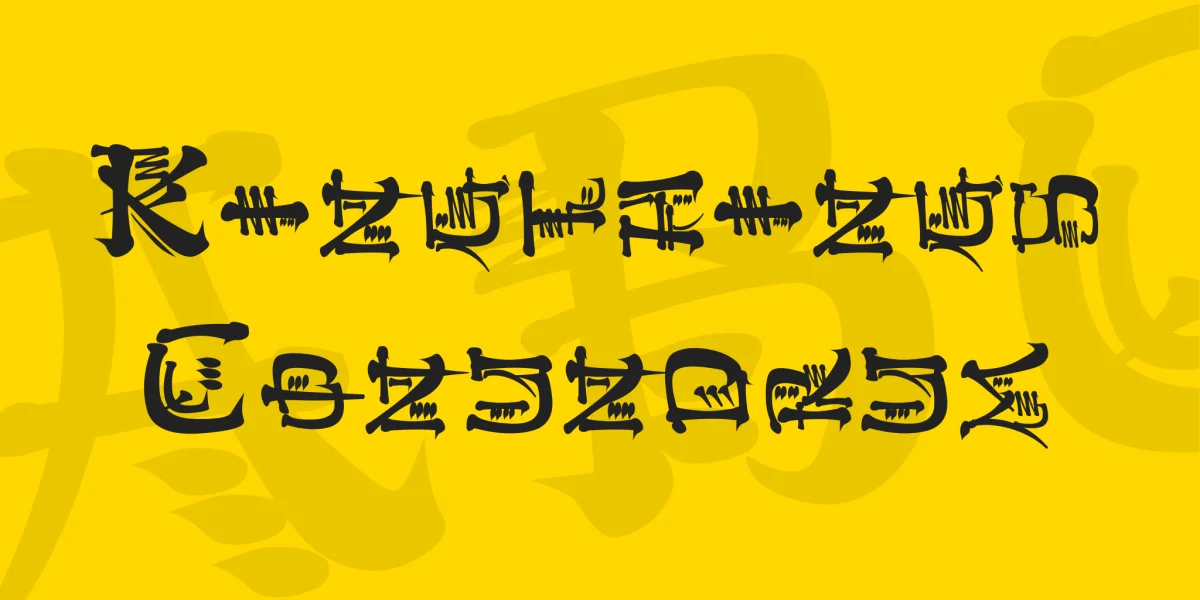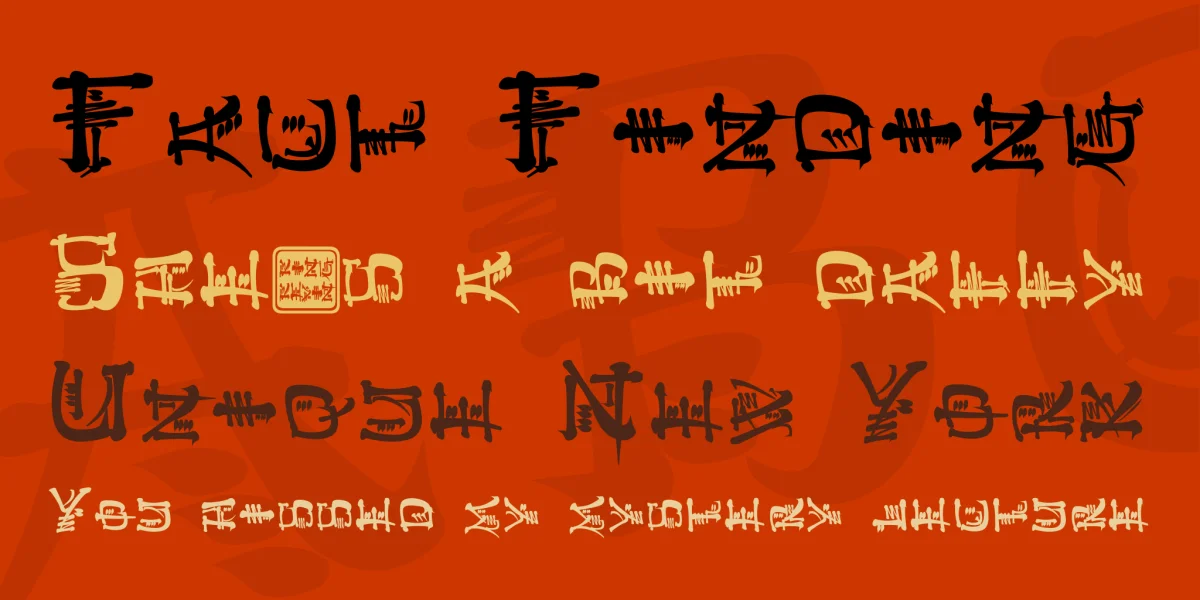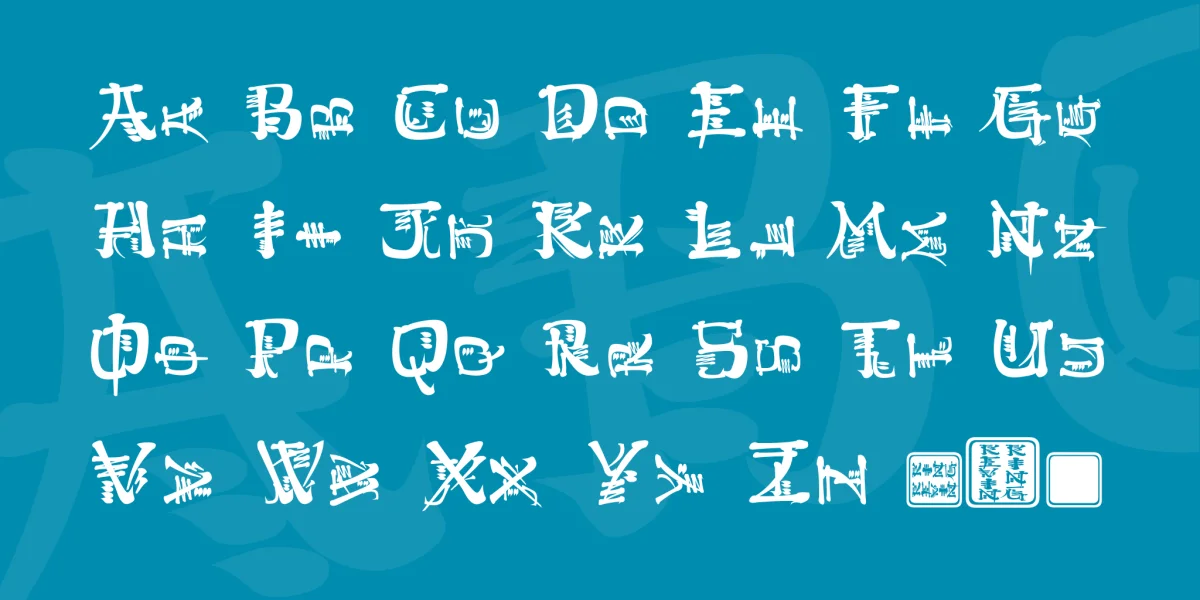
I have said before you know - I can if I want to (Stamp! Scowl!)
Cod Chinese of the worst kind, I wanted a 'Chinese' font for a project and couldn't find what I wanted. I painted this font with a Chinese brush and imported the resultant mess - it's been a while since I did any 'Chinese calligraphy' - add that to the fact that I don't read or speak Chinese...
You will find two sets of 'upper case' characters in this font - one set is on it's side to aid setting my 'Chinese' Top to bottom - right to left - if you're that anal... I am.